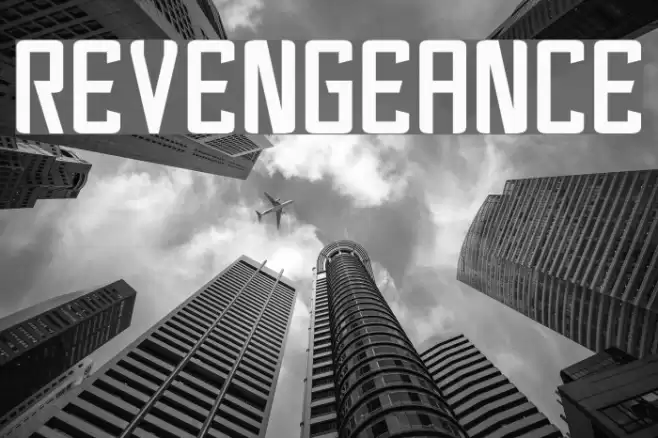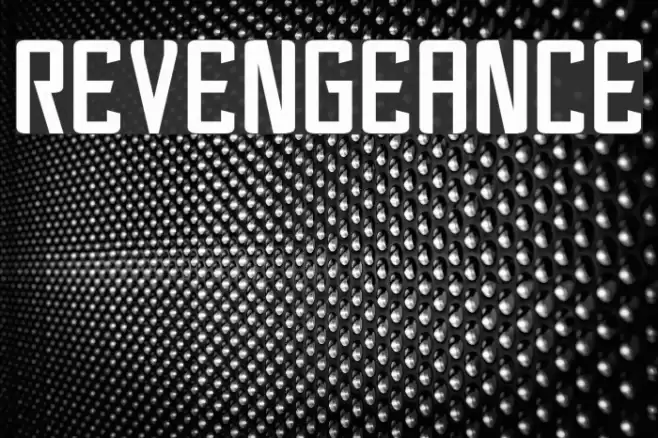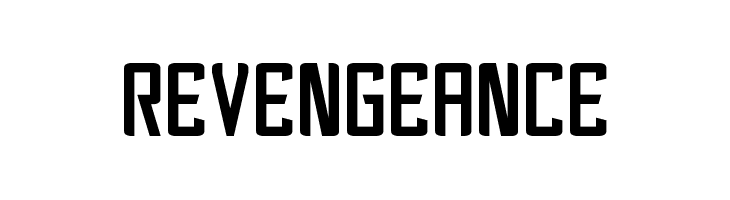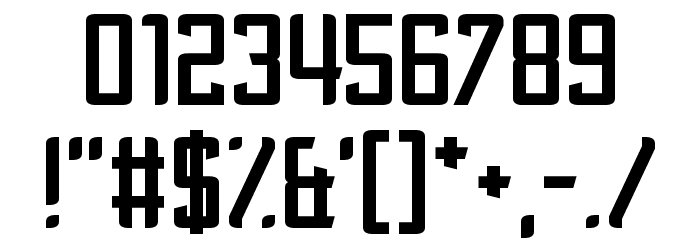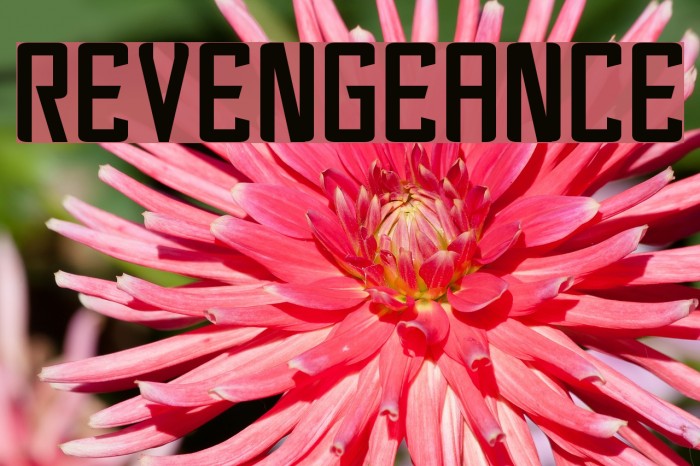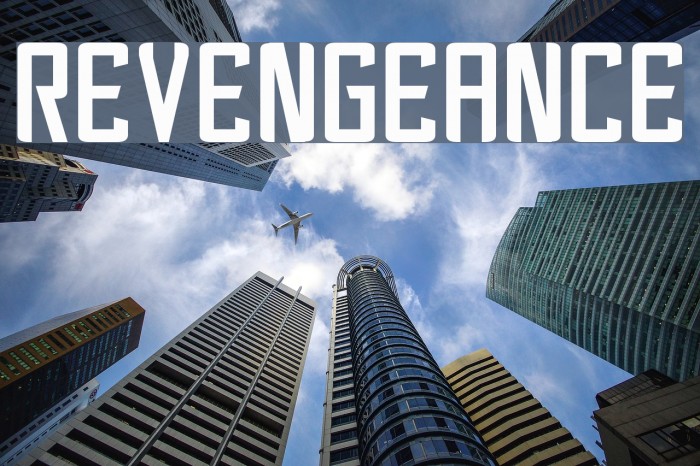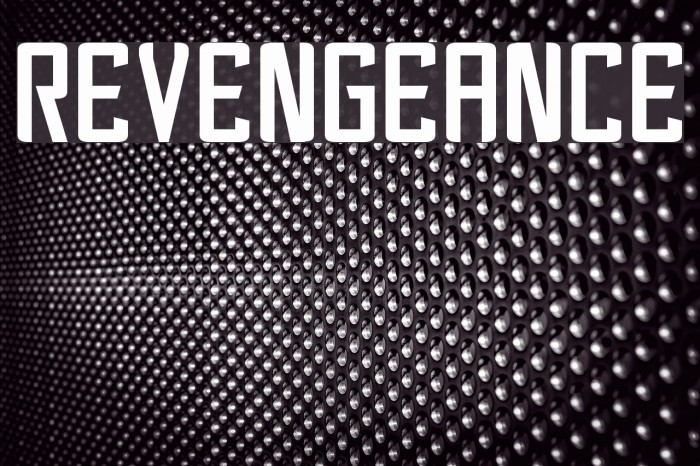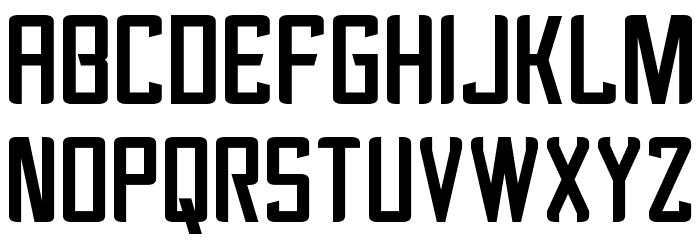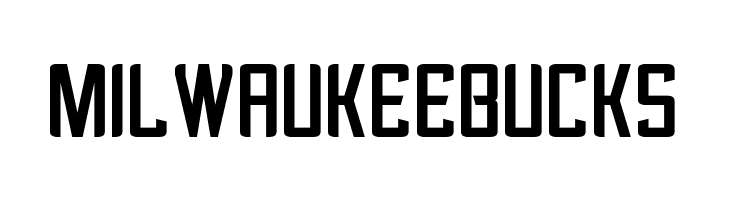
Revengeance Font
Revengeance Description
This font features a bold and modern design with a geometric structure. The characters are tall and narrow, giving a condensed appearance that is both striking and legible. The uppercase and lowercase letters maintain a consistent height, contributing to a uniform look. The numbers and special characters are designed to match the overall style, ensuring a cohesive appearance across all text elements. The font's clean lines and sharp angles make it suitable for contemporary design projects, where a strong and impactful visual presence is desired.
A bold, modern font with a geometric and condensed design from Uncategorized fonts.